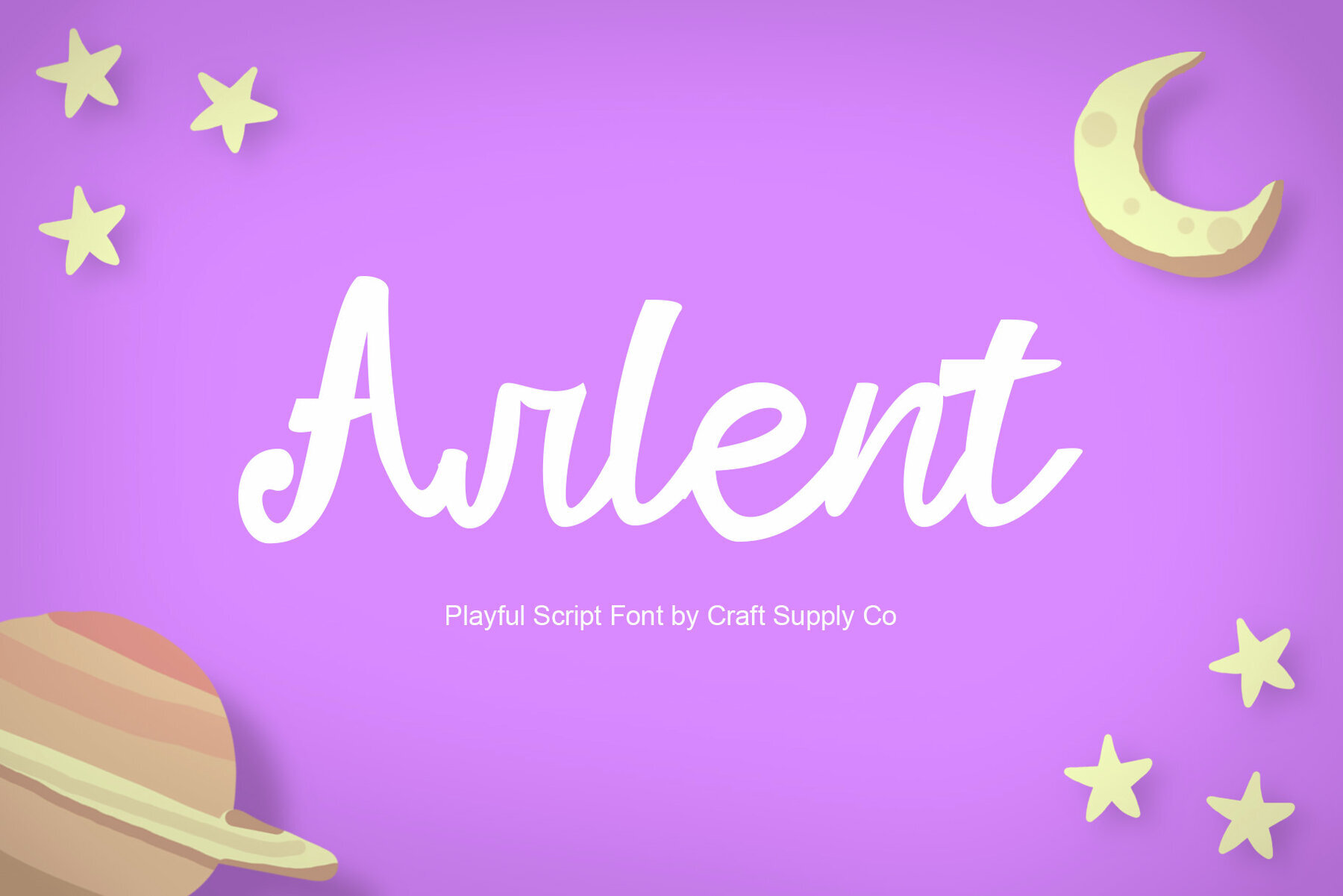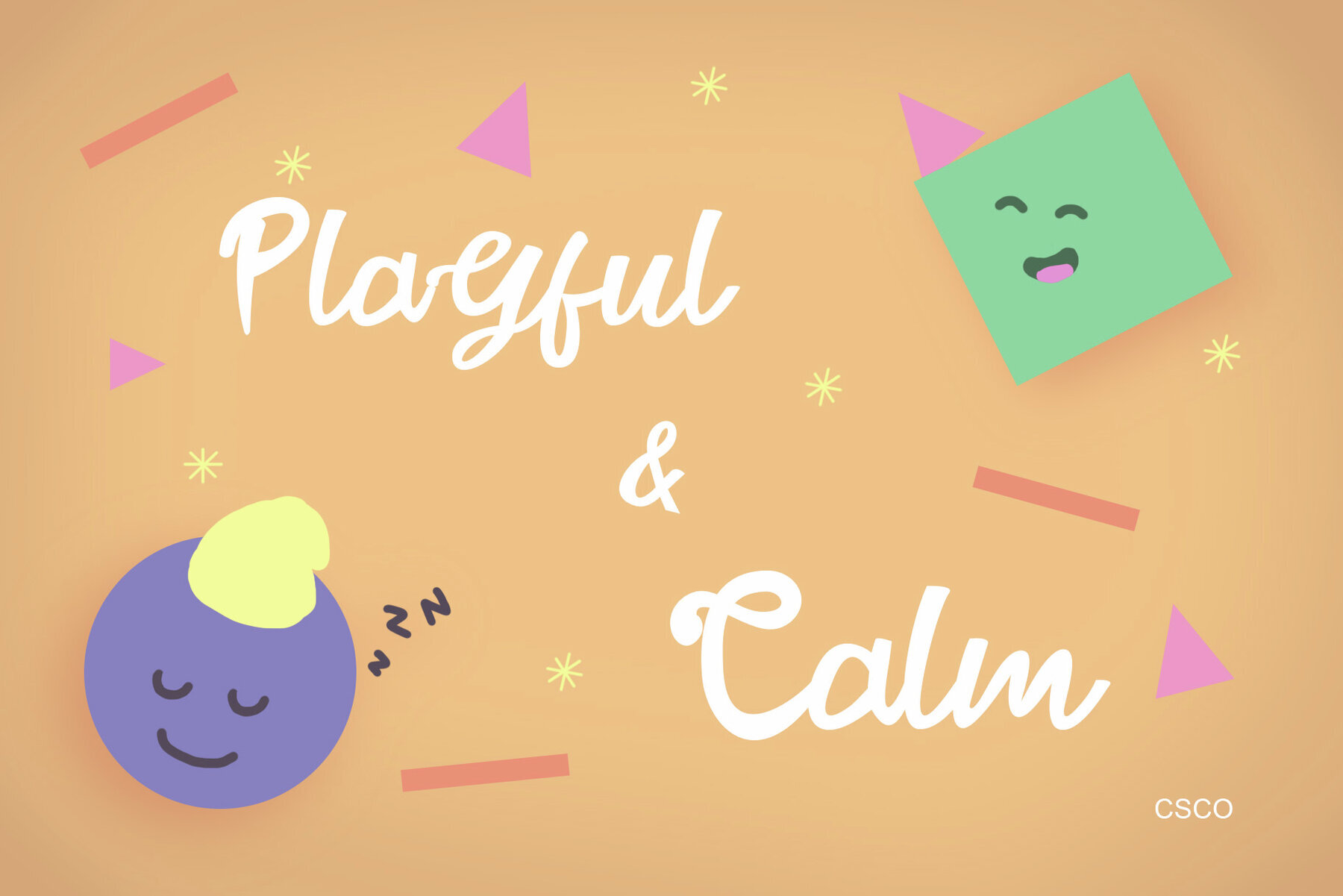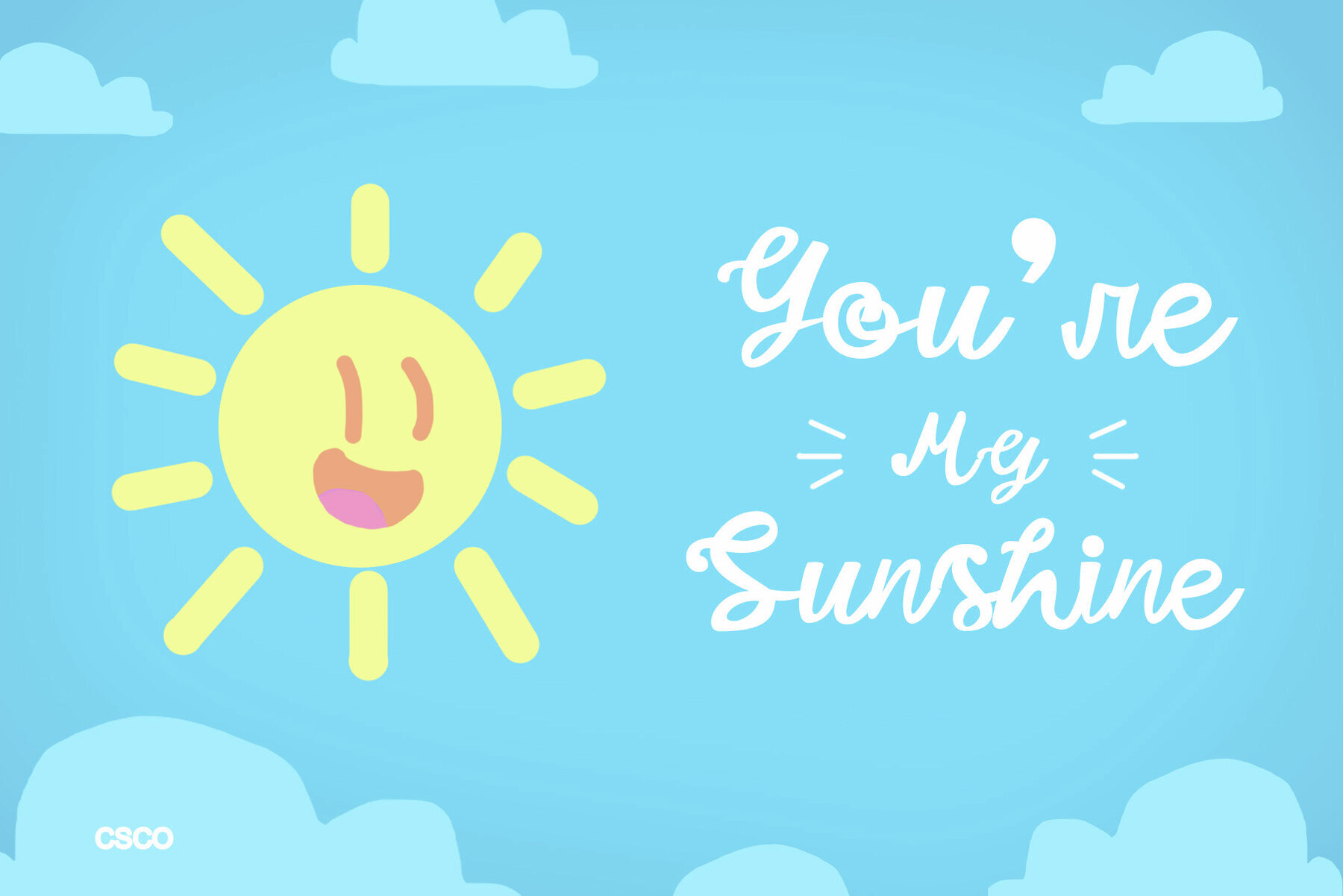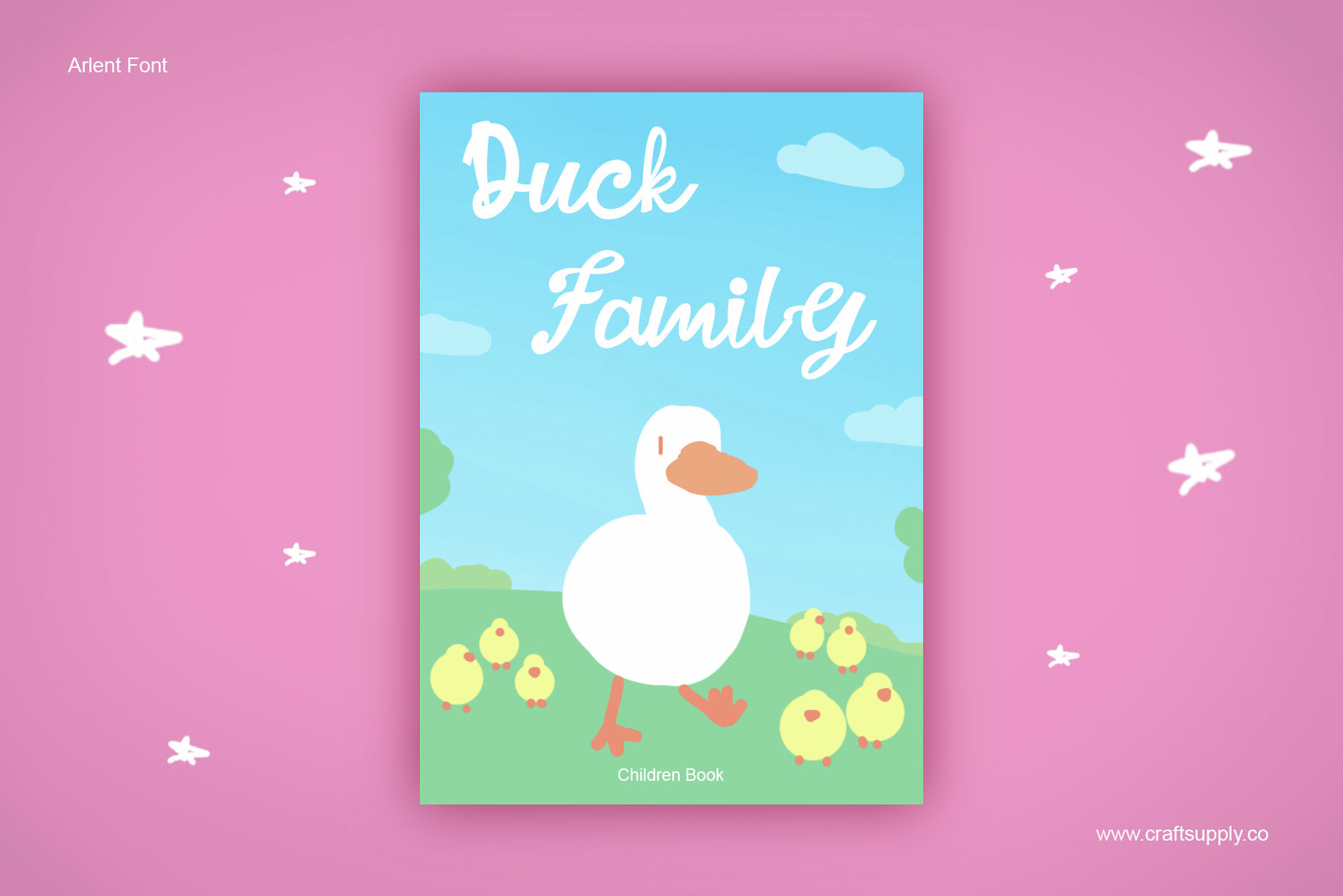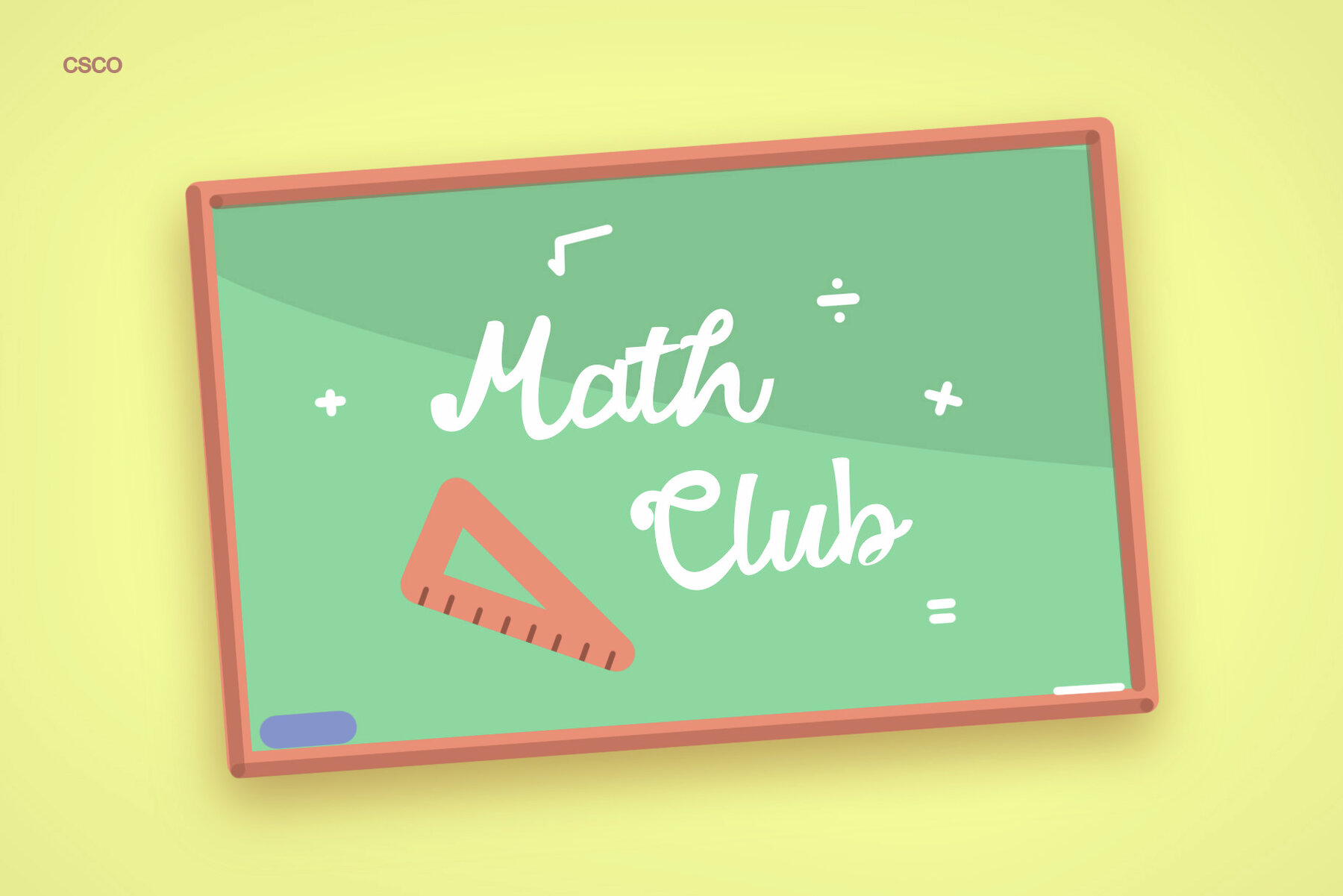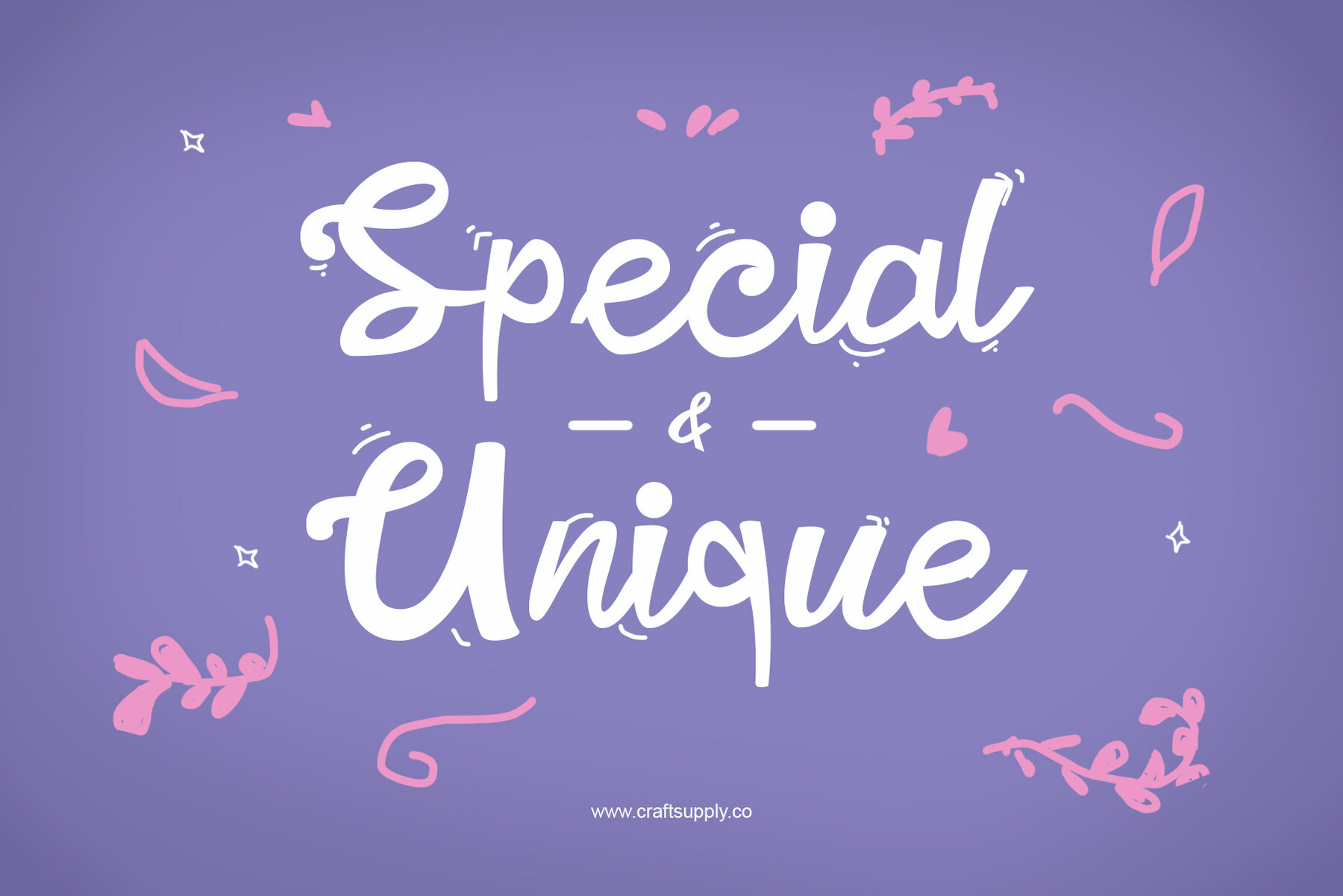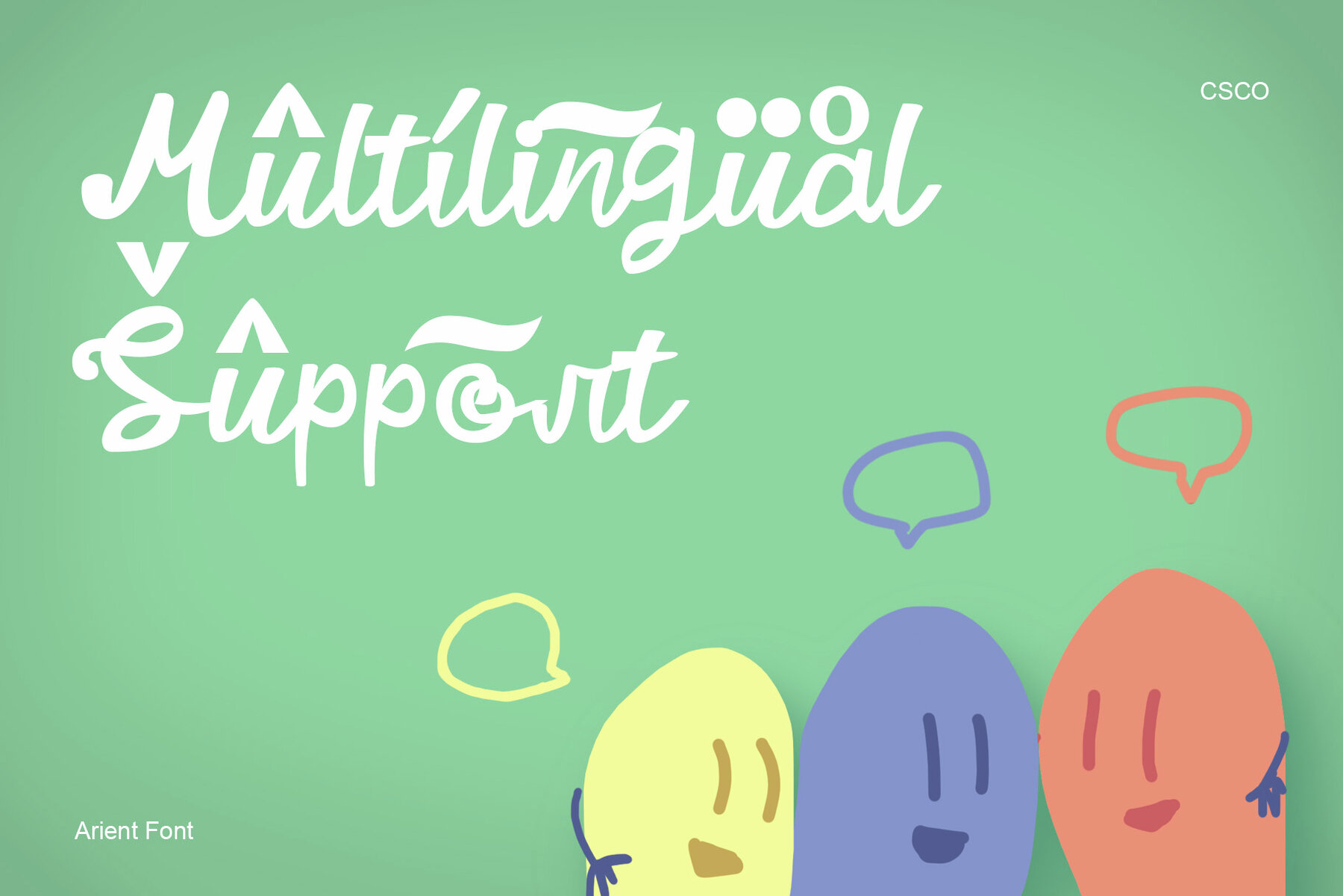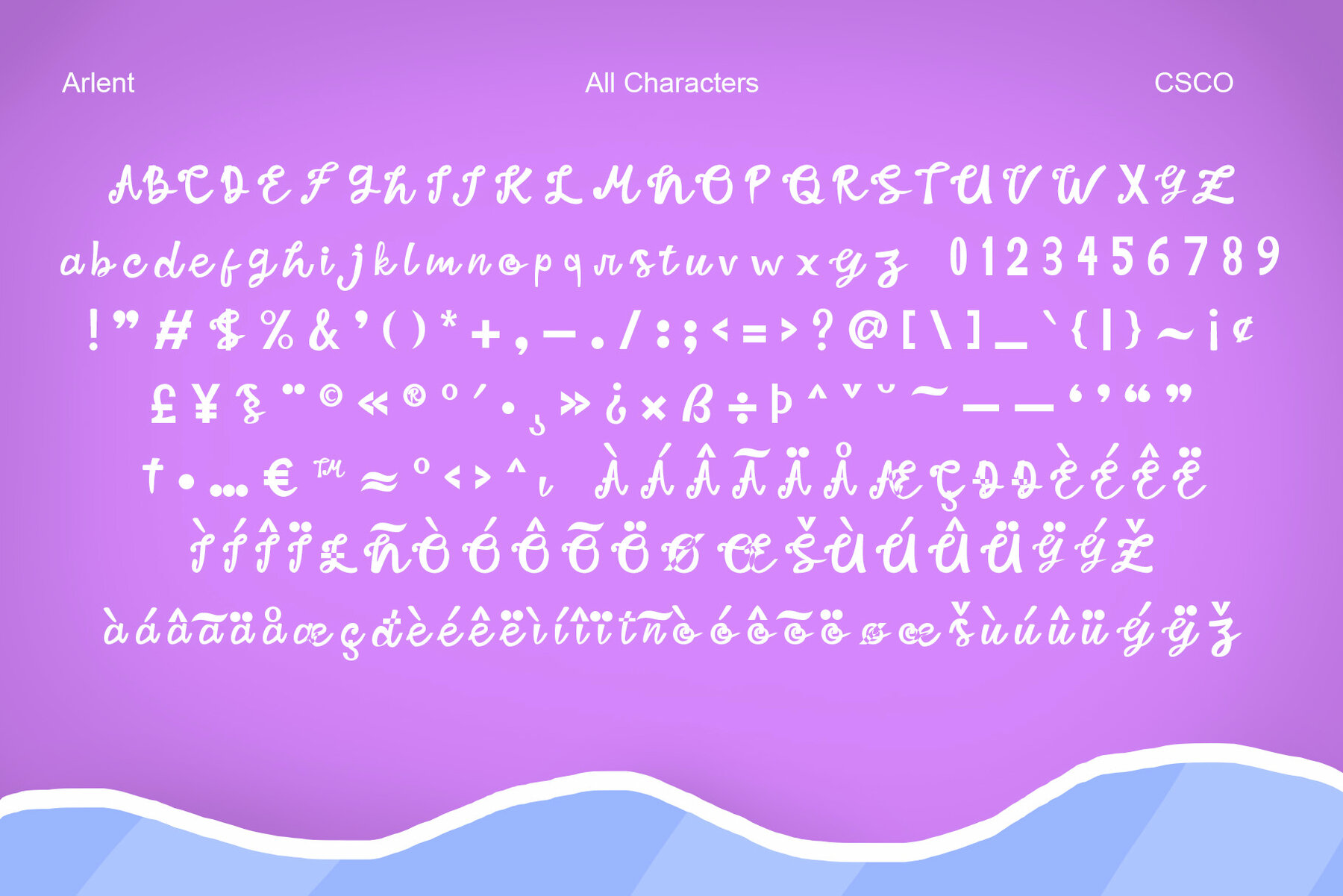
Arlent Font
Arlent Regular
Arlent – Playful Script Font is a delightful and exuberant typeface specially crafted for children, radiating an aura of cheerfulness and boundless joy. With its whimsical and playful letterforms, Arlent captures the essence of youthful innocence, making it the perfect choice for projects targeted at kids. Imagine Arlent as a friendly companion on a journey of creativity and imagination. Its joyful, flowing script adds a touch of magic to any design, whether it’s children’s books, educational materials, or playful packaging. Arlent is like a burst of laughter in the world of typography, making it an excellent choice for projects that aim to spark smiles and ignite the imagination of young minds. With Arlent, your designs will resonate with the energy and happiness of childhood, ensuring a delightful and memorable experience for kids and those young at heart. It’s the font that brings fun and cheer to your creative endeavors, creating a world where imagination knows no bounds.